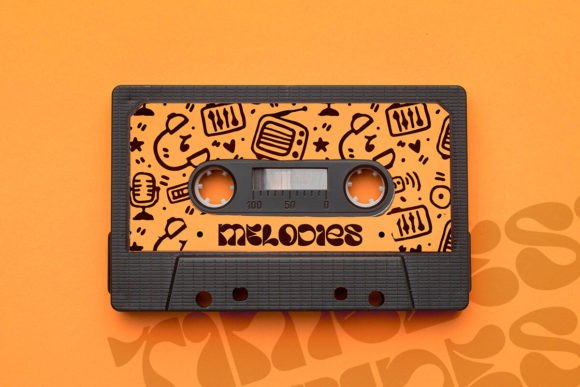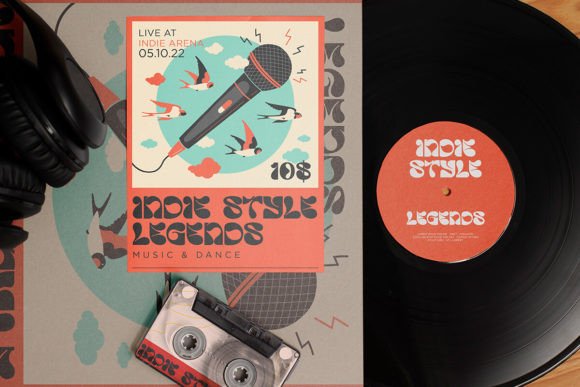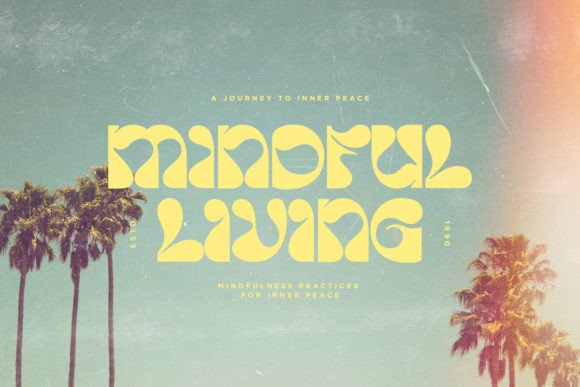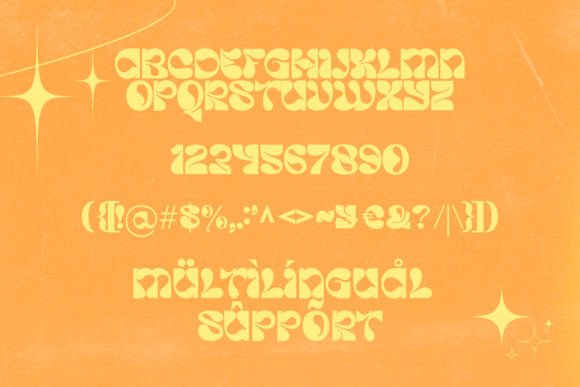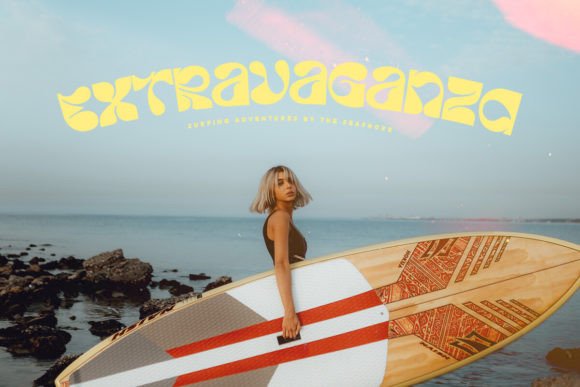
Introduction to Lyzero Font
Do you remember the thrill of digging through your grandma’s old record collection, discovering hidden gems from the ’70s and ’80s? The same excitement and nostalgia can be brought to your creative projects with the Lyzero Font. This groovy retro font combines funky and vintage elements to create an eye-catching typography look that’s perfect for designers looking to add a touch of nostalgia to their designs.
The Lyzero Font is a high-quality design resource that’s making a comeback in the world of typography. With its sparkling characters and vibrant style, this font is ideal for creative projects that require a fun and retro vibe. Whether you’re working on a vintage-inspired campaign or a design project that needs a bold statement, the Lyzero Font is a valuable addition to any designer’s toolkit.
Key Features of Lyzero Font
- High-quality design: Lyzero Font is designed with precision and attention to detail, making it perfect for creative projects that require a touch of elegance.
- Unique characteristics: Lyzero Font features a unique blend of modern and vintage elements, making it perfect for designers who want to add a touch of personality to their work.
- Easy to use: With its clean and simple design, Lyzero Font is easy to use and requires minimal setup, making it a great choice for designers of all skill levels.
Honest Review: Lyzero Font
- ✨ Unique and creative design that sets it apart from other fonts.
- ✨ High-quality vector format ensures crisp and clear typography.
- ✨ Transparent background makes it easy to integrate with any design.
- ⚠️ Limited font sizes and styles may not be suitable for complex designs.
Overall, I’m impressed with the Lyzero Font’s potential to add a touch of creativity to my designs. While it may not be the most versatile font, its unique design and high-quality format make it a great addition to any design resource collection. If you’re looking for a distinctive font to spice up your next project, the Lyzero Font is definitely worth checking out.
Use the Lyzero Font on a transparent background to create a modern and sleek design. You can also use the font in combination with other design elements to create a unique and creative project.
The Lyzero Font is ideal for use in logos, branding materials, and other creative projects. It’s also a great resource for designers who want to create a high-quality, professional-looking design with a transparent background.